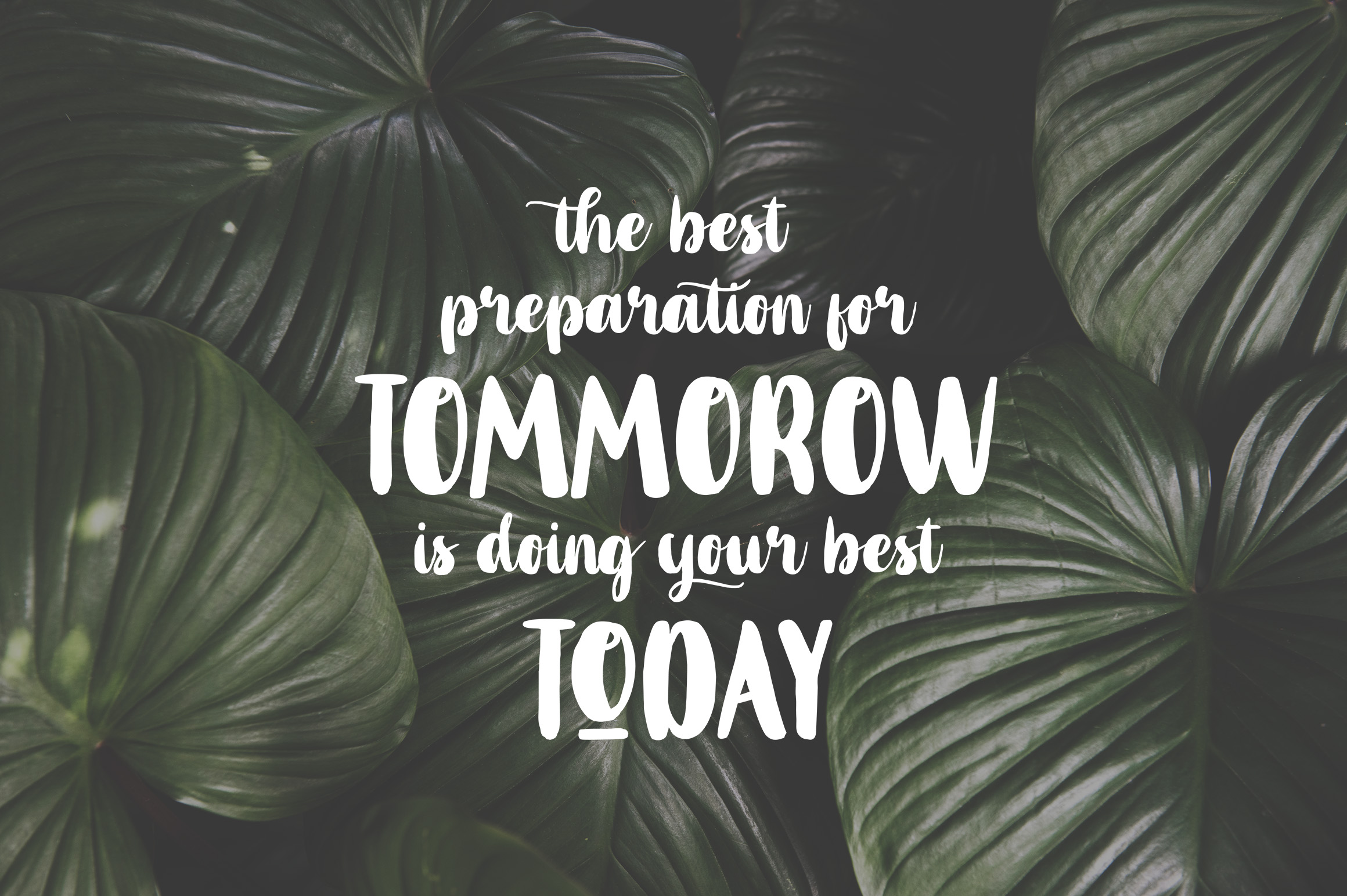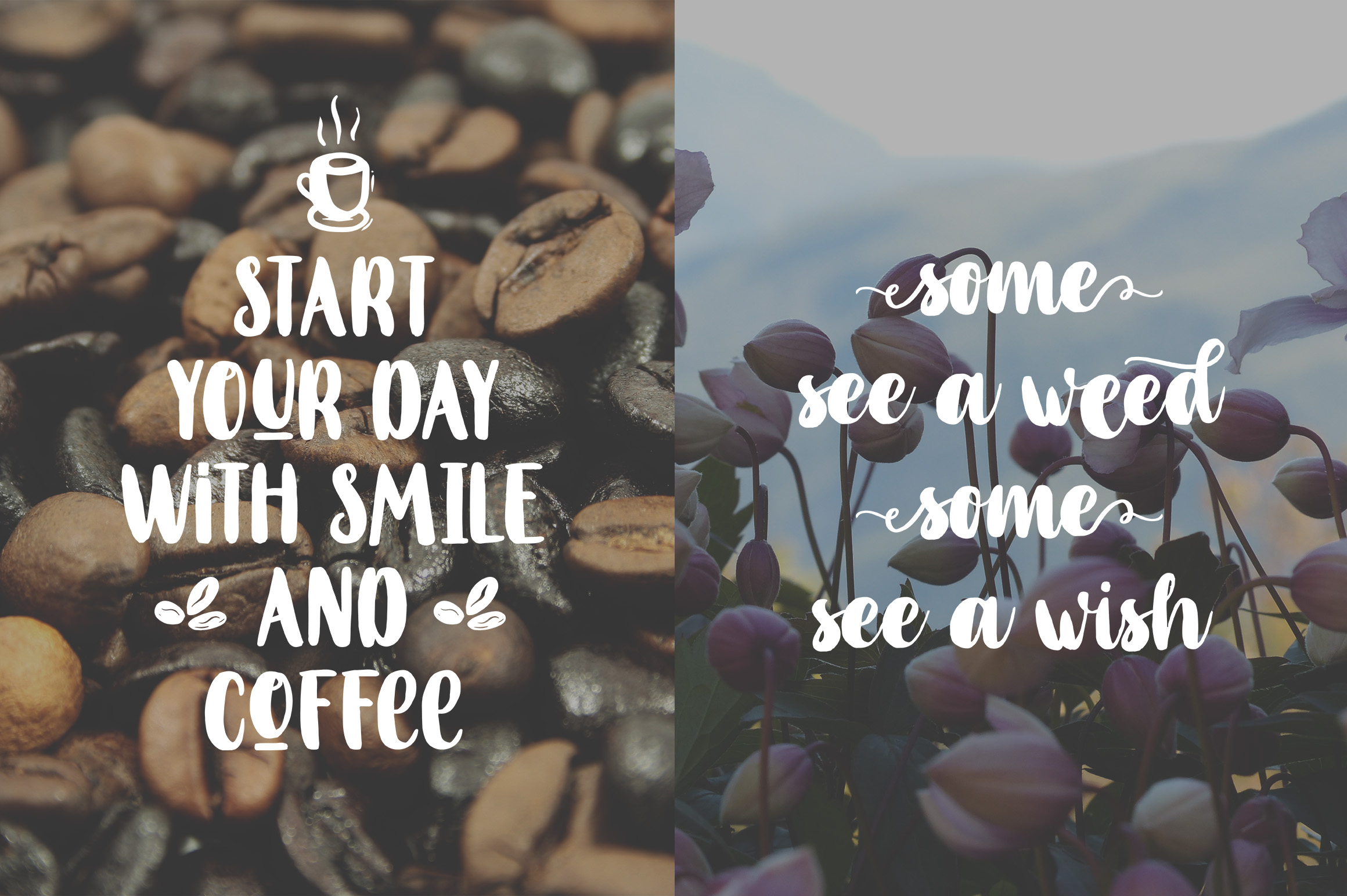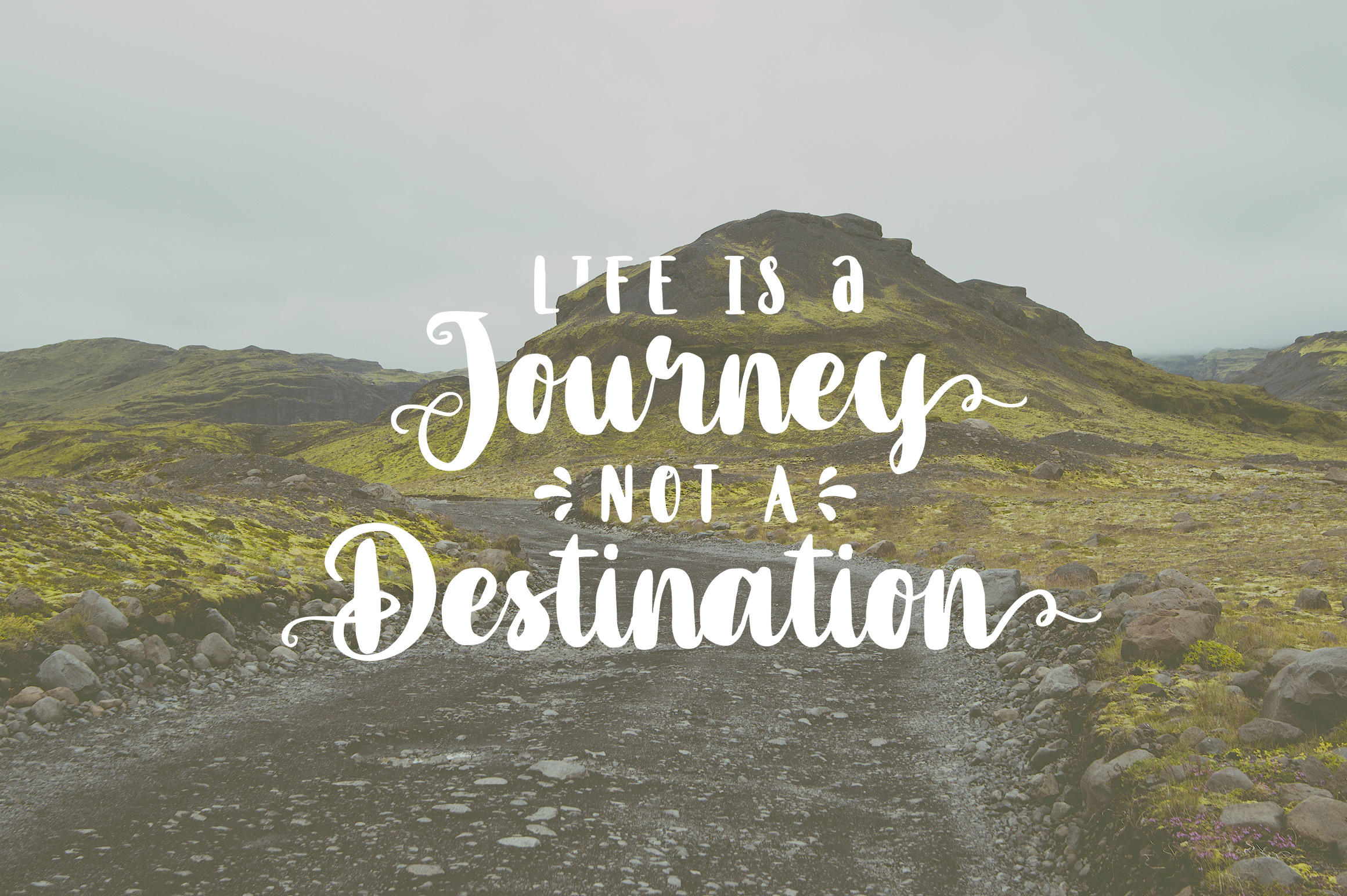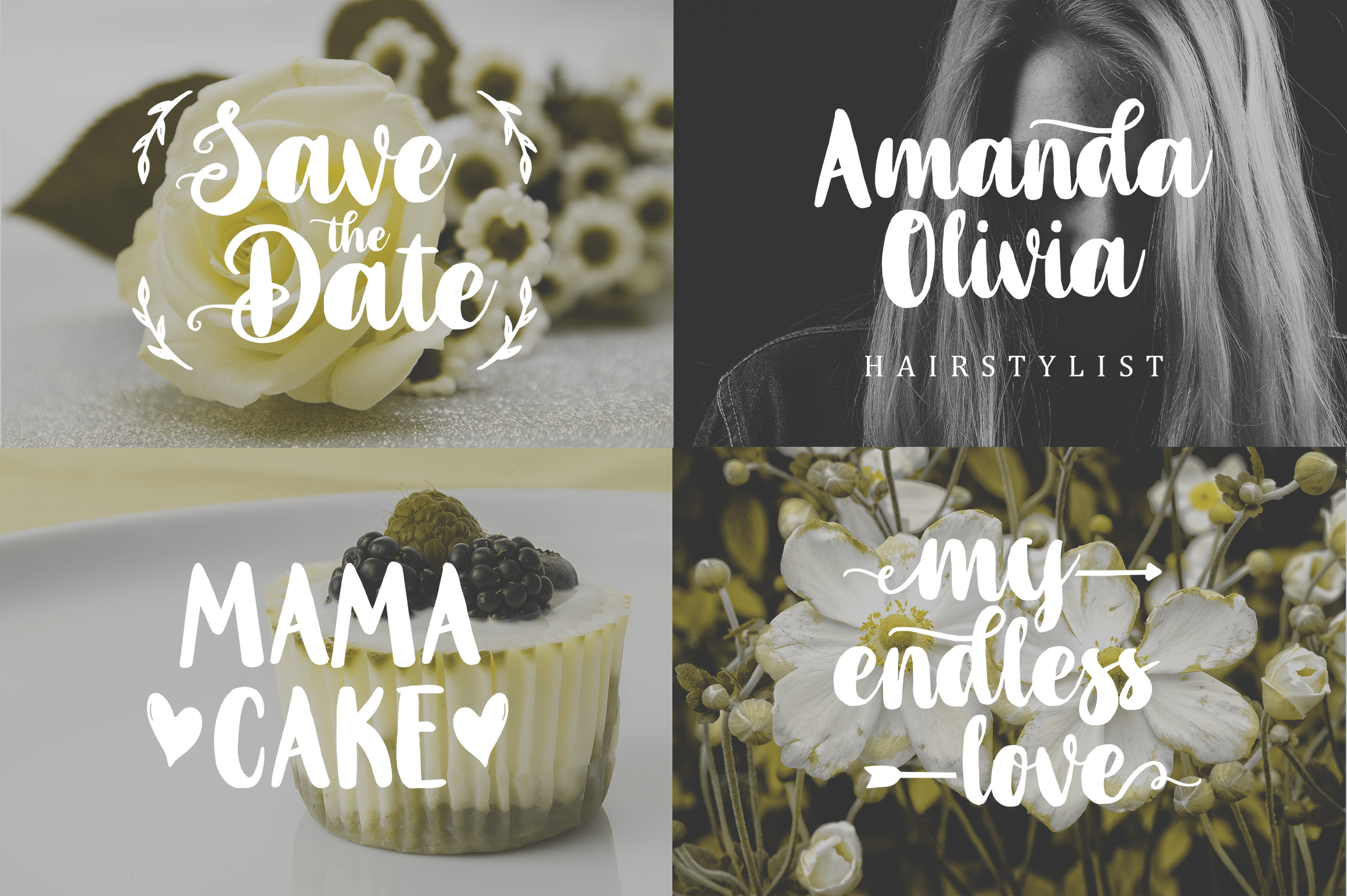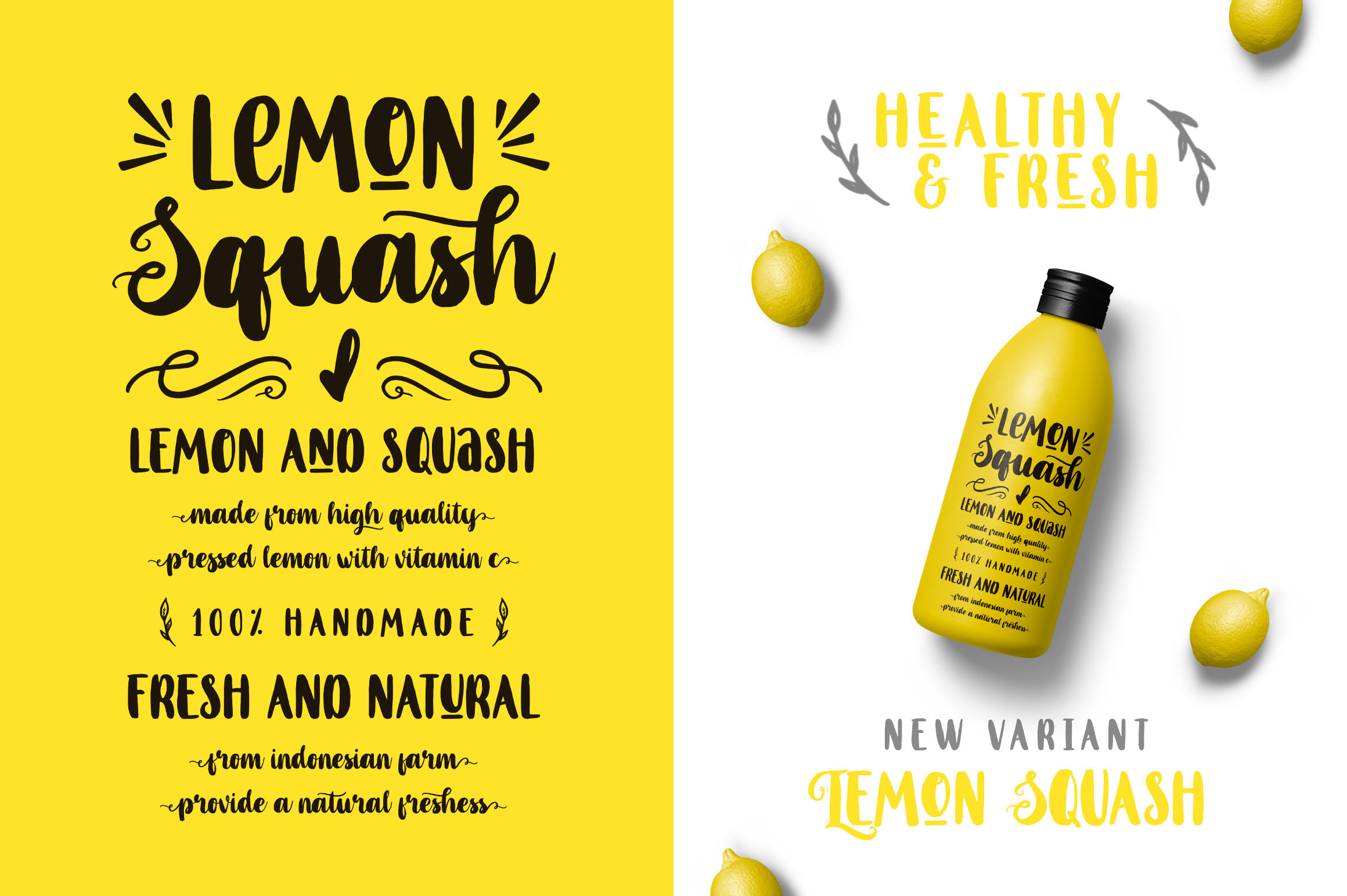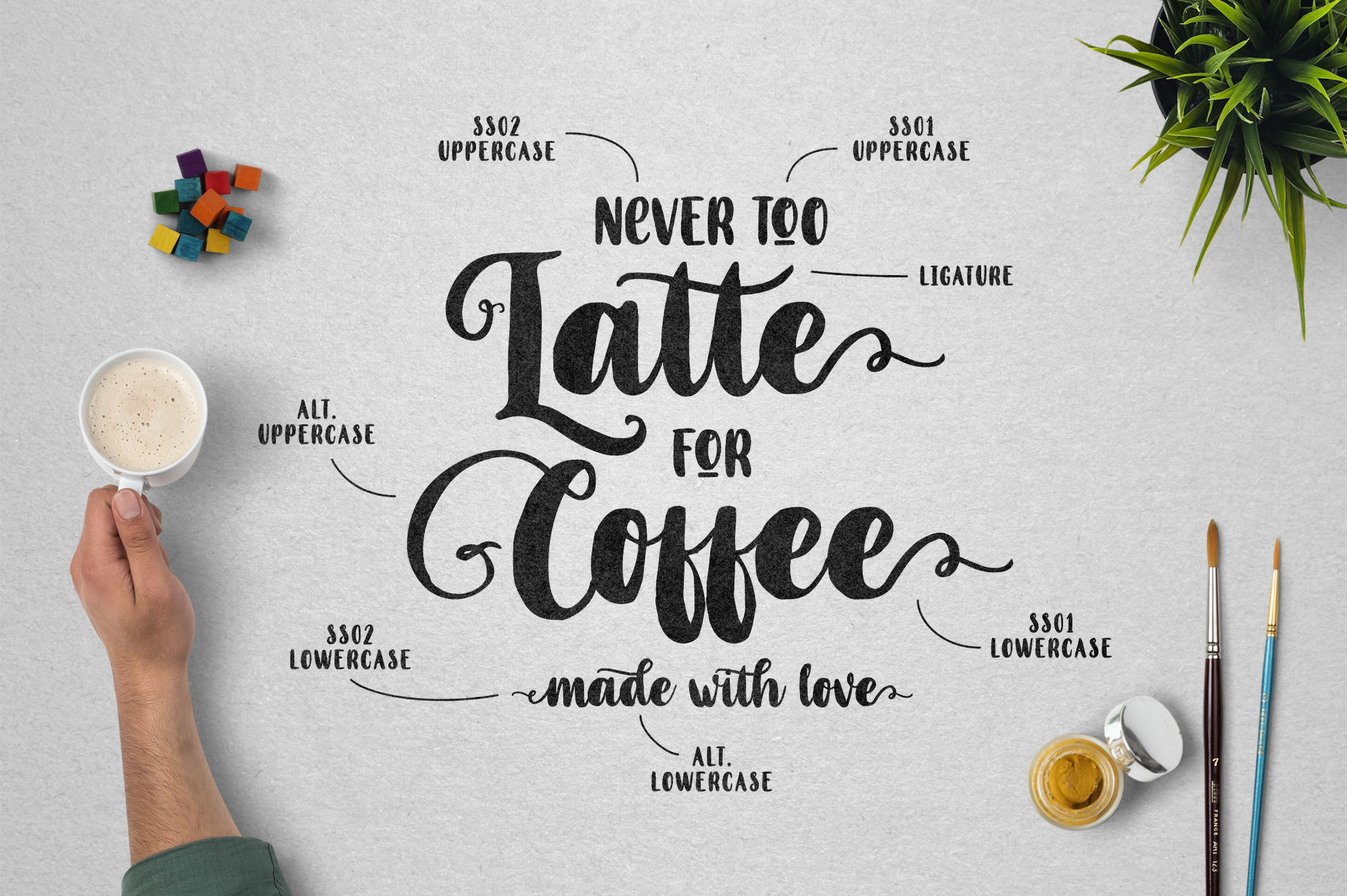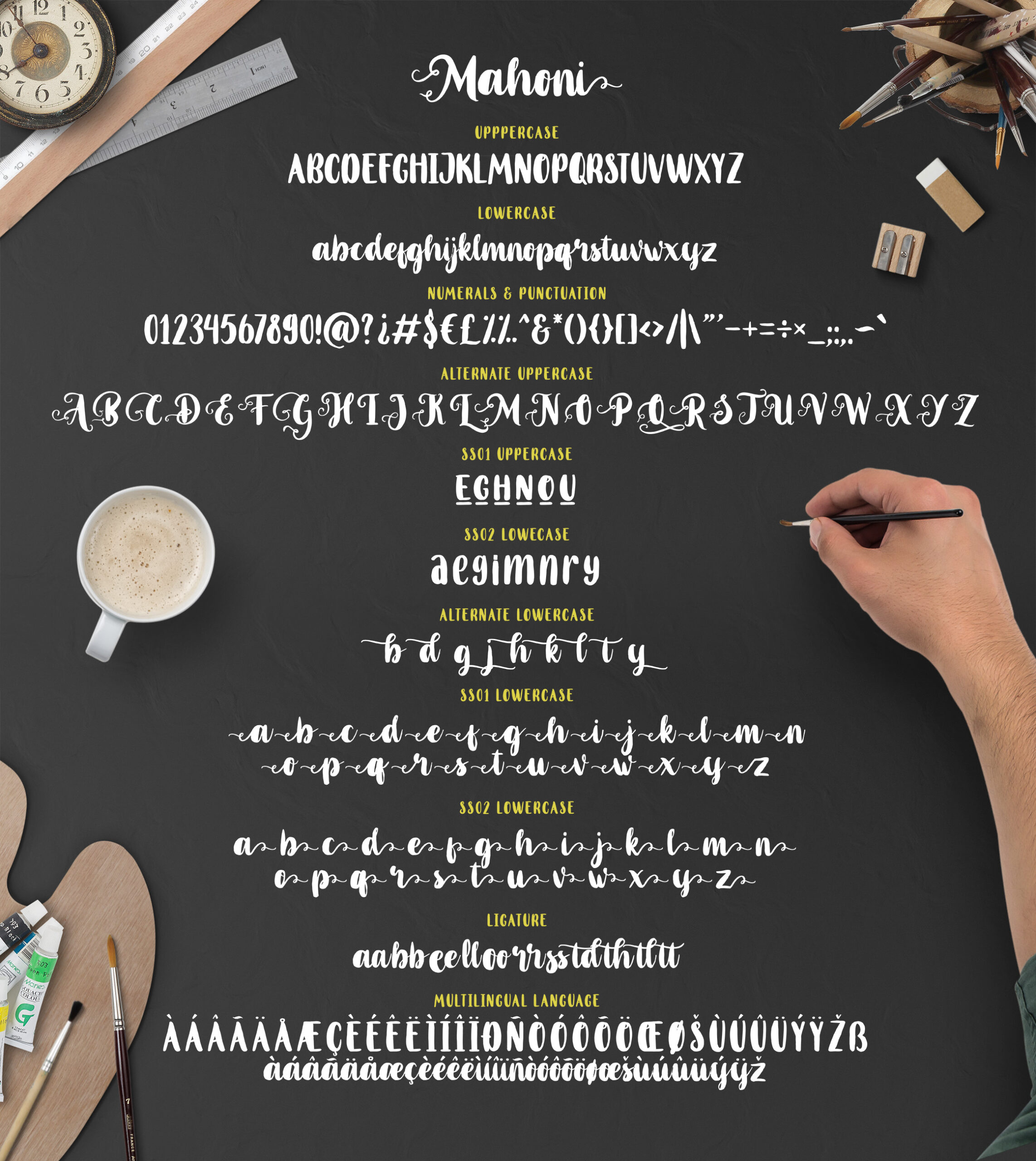
Mahoni Font
About Mahoni Font
Mahoni is a stunning handwritten script font, both elegant and friendly. This high contrast calligraphy style handwritten font is a great way to add some authenticity and approachability to your designs.